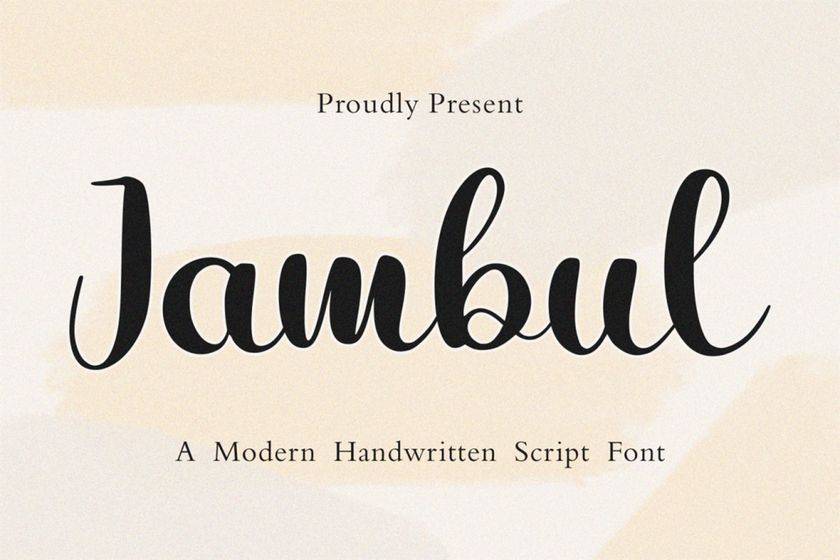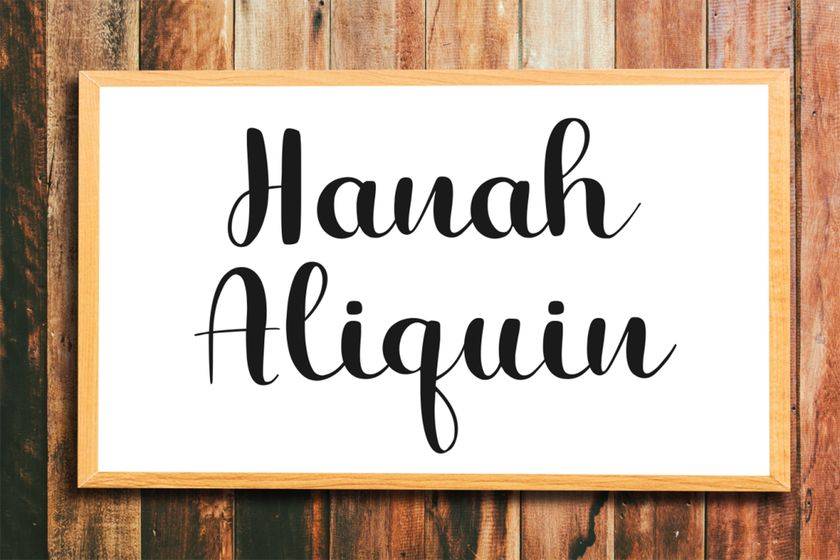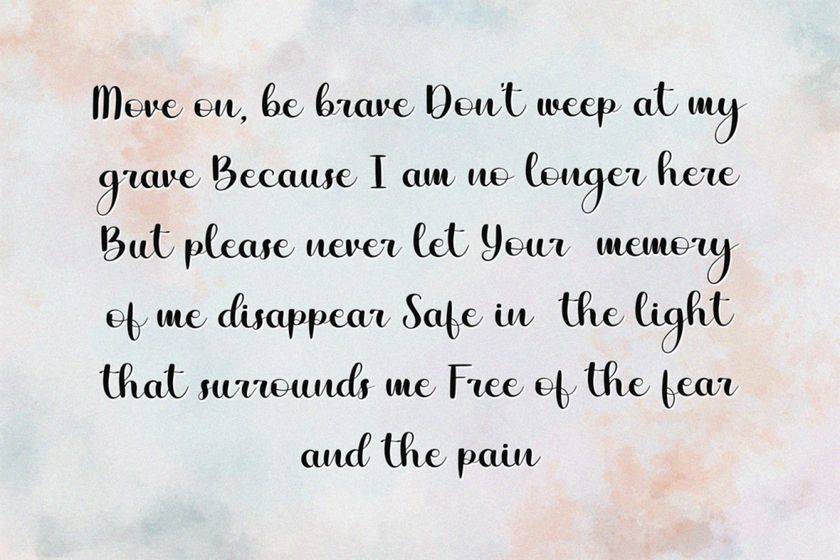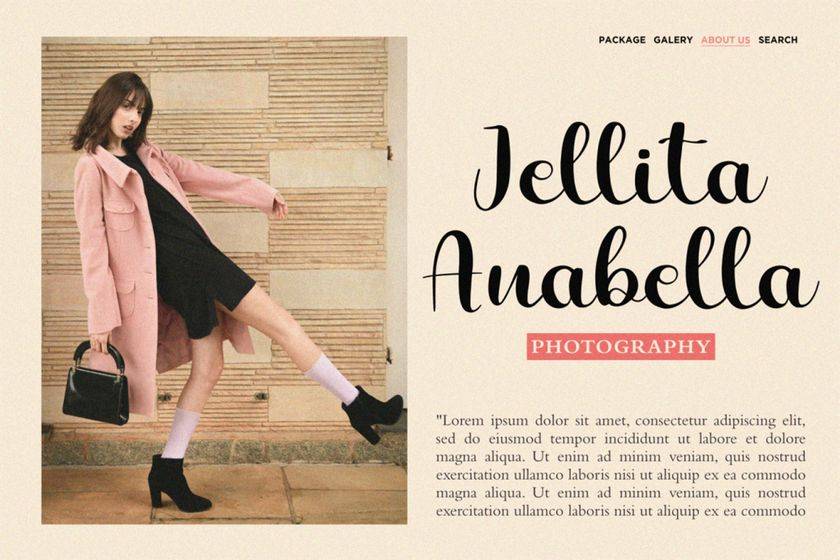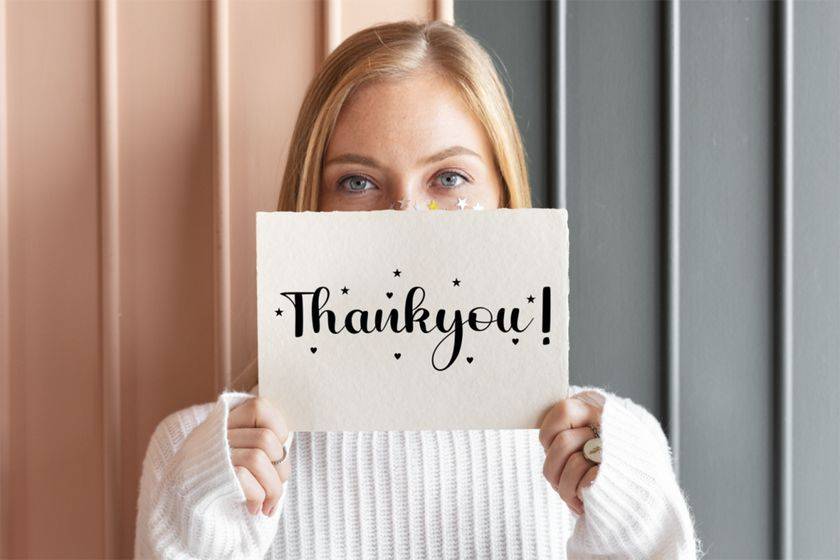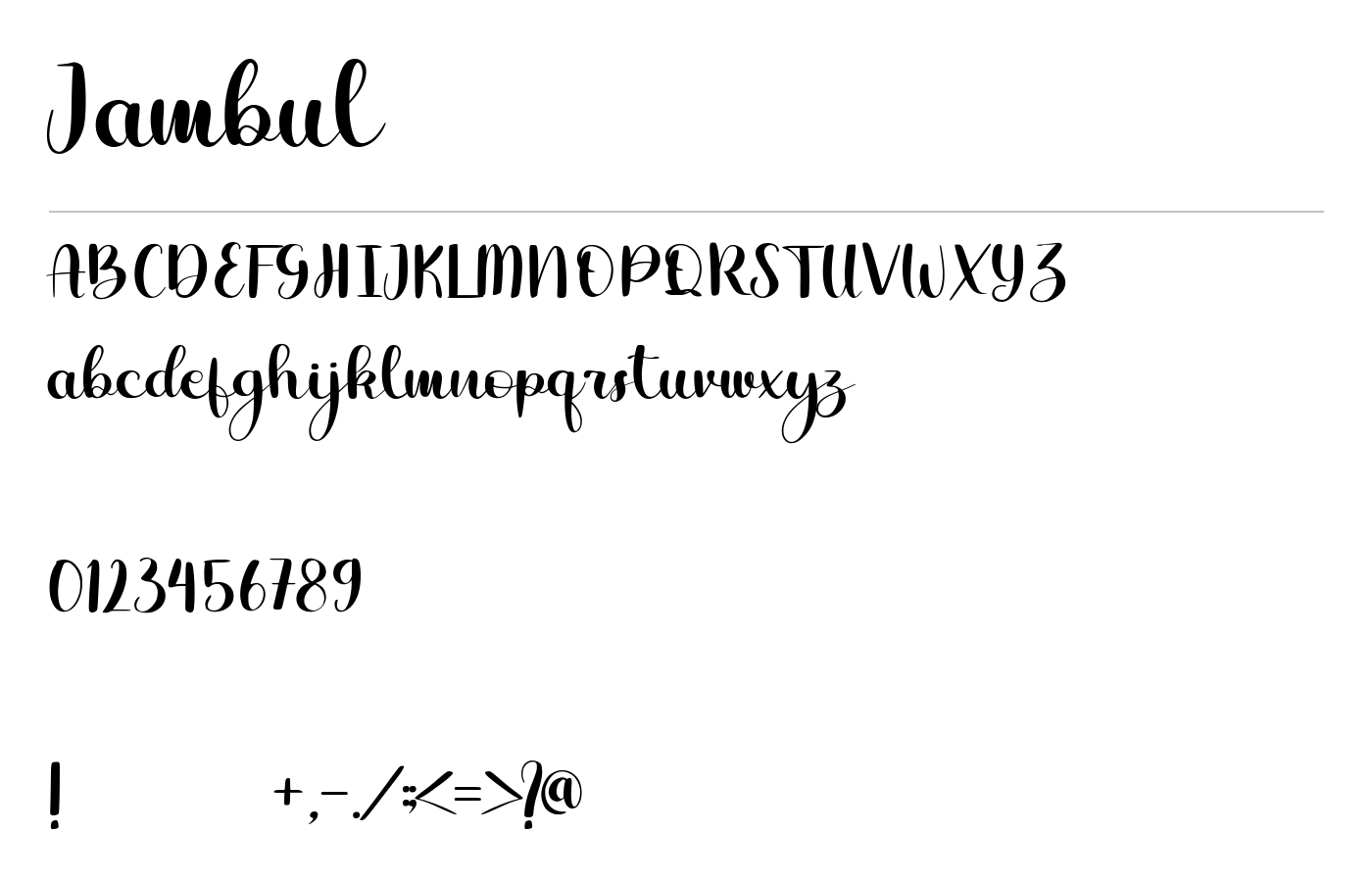
Jambul is a playful and elegant script font that features smooth, flowing strokes with moderate contrast and charming swashes. Its tall x-height and lively letterforms make it perfect for adding a personal, handwritten touch to branding, invitations, and creative projects where a friendly yet stylish vibe is desired. This font shines in display uses like logos and headlines, bringing warmth and personality to any design.
Jambul Font